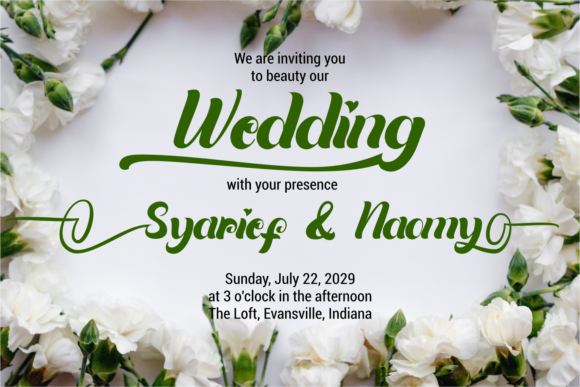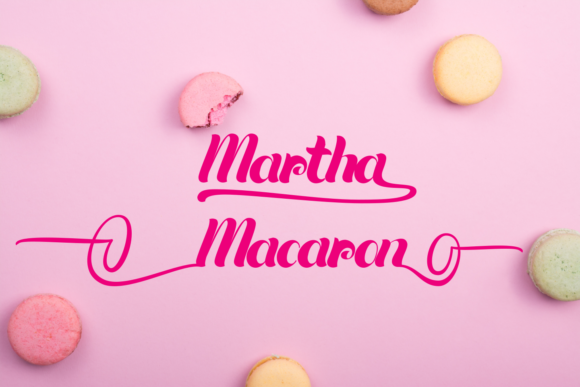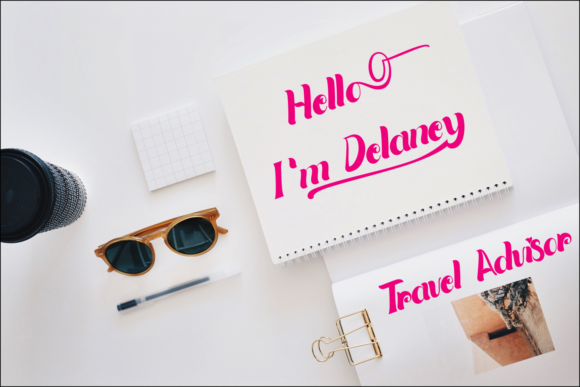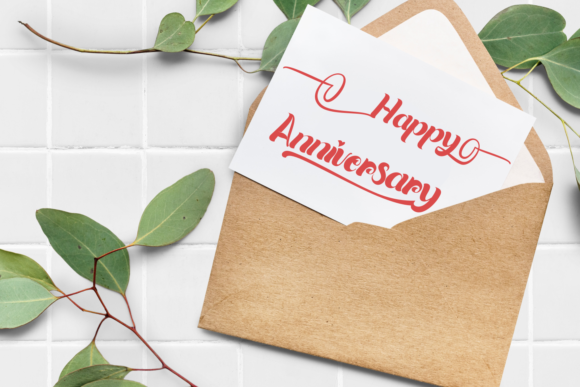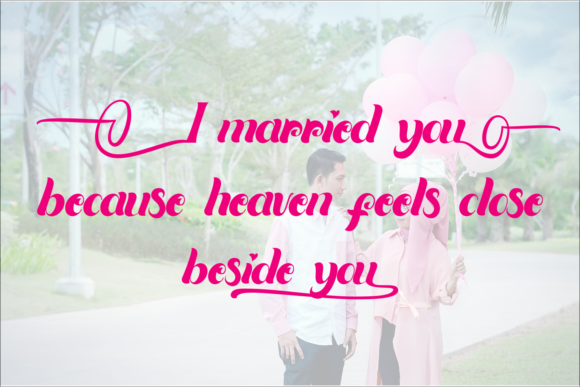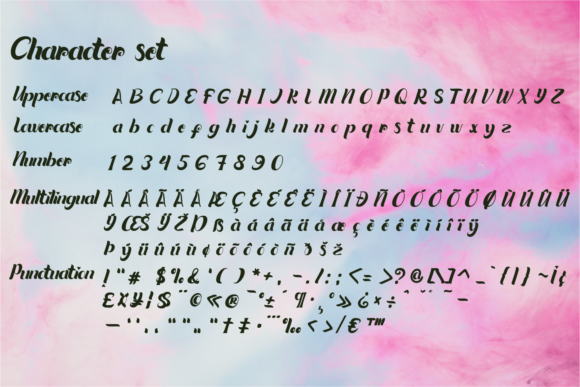
Introduction to Quintuples Font
Quintuples is inspired by iconic calligraphy.
It will add a unique charm to any design project .
Key Features of Quintuples Font